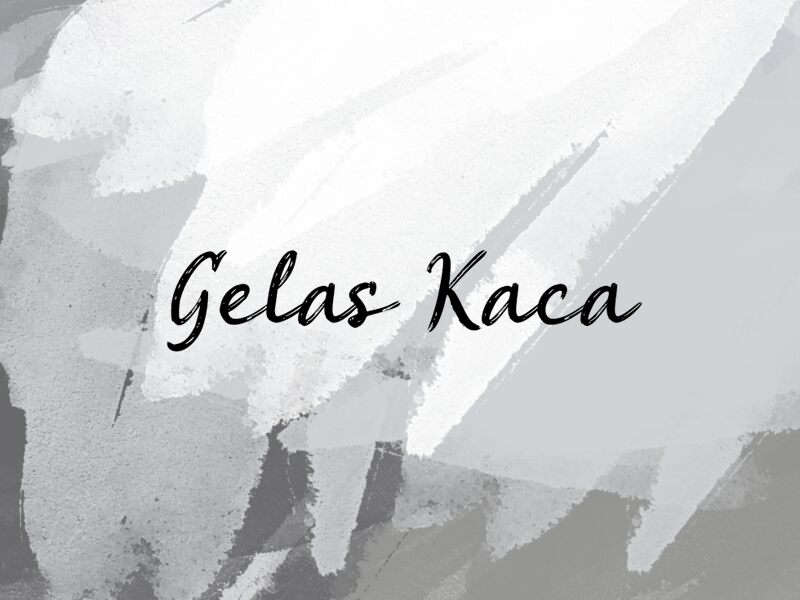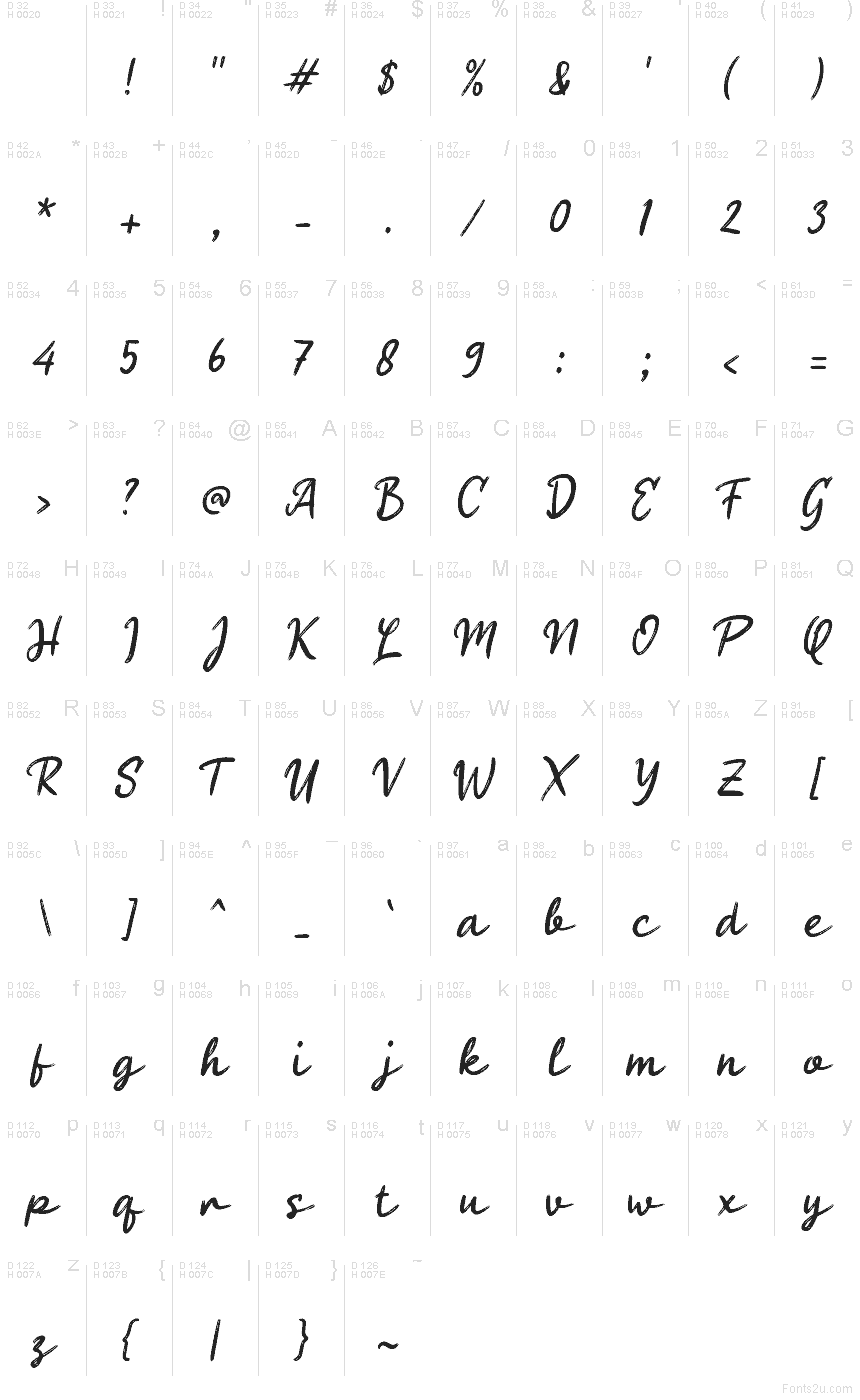
Gelas Kaca by Wep is a free brush script with a quick, handwritten swing and a slightly dry stroke that feels lifted straight from a marker. The letters lean into loose loops and tapered flicks, with a casual rhythm that keeps the wordmark feel lively rather than polished.
This free font fits branding for cafes, drink labels, lifestyle packaging, social media headers, poster titles, and short cover lines where a human touch matters. It also works well for quote graphics and title cards, since the long finishing strokes and easy cursive flow give even a few words the feel of a signed note.